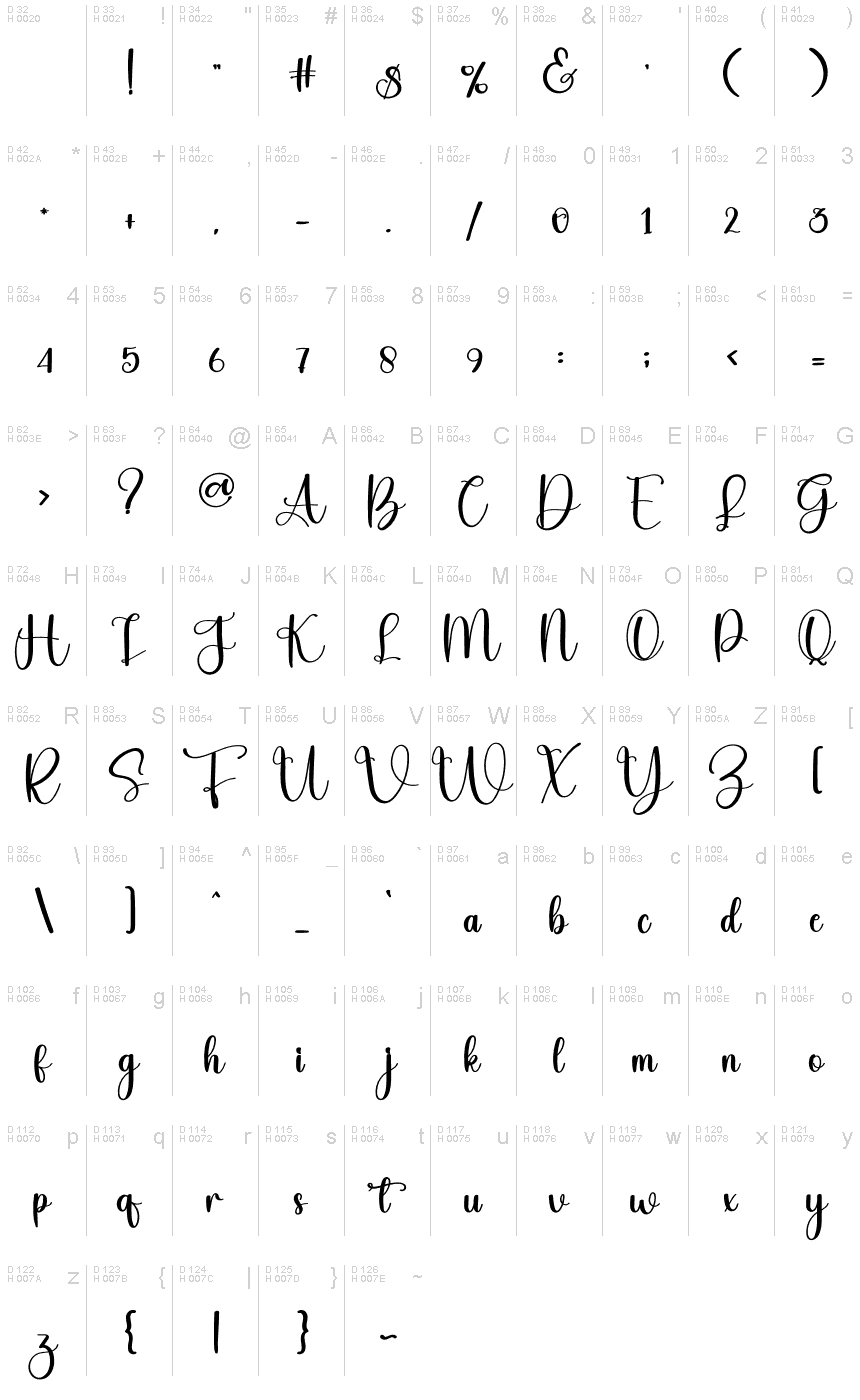
Urban
Urban, a mesmerizing calligraphy font created by Inermedia Studio, effortlessly blends elegance with a contemporary twist.
With its semi-light weight, this font exudes grace and sophistication, making it ideal for wedding invitations, high-end fashion magazines, and luxury branding projects. Its delicate strokes and intricate curves add a touch of refinement to any design. Bring an urban chic vibe to your next project with Urban - the perfect choice for those seeking a harmonious balance between tradition and modernity.